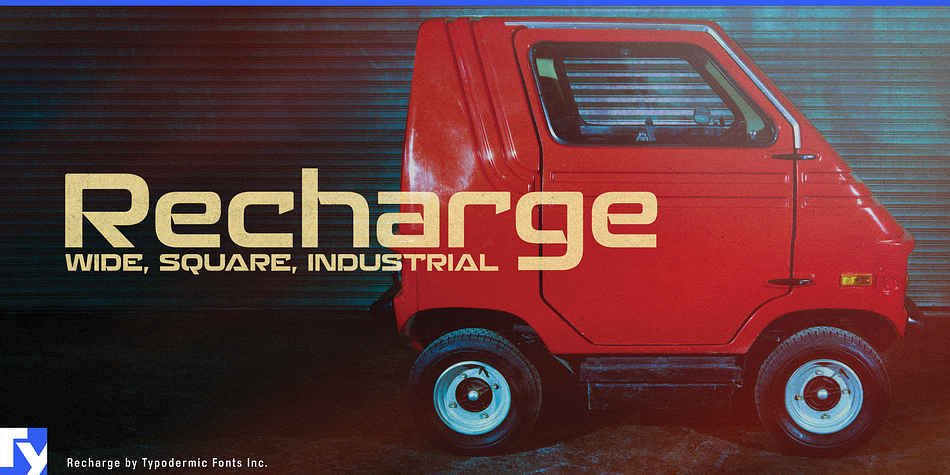
Recharge
Recharge is a display sans font family. This typeface has fourteen styles and was published by Typodermic Fonts Inc.
Introducing Recharge—the bold and versatile industrial typeface that’s designed to make your words come alive! With its broad, square design, Recharge is perfect for creating explosive headlines that demand attention. But don’t be fooled by its brash exterior—the refined lowercase letters are also ideal for producing crisp, legible paragraphs that will keep your readers engaged.
What really sets Recharge apart are its unusual angled stroke ends, which give the typeface a unique and dynamic character. These distinctive details make Recharge a great choice for a wide range of themes, including sports, military, space, automotive, electronics, and other technological subjects.
Whether you’re designing a bold and eye-catching advertisement or a sleek and modern website, Recharge has you covered. With seven weights and italics to choose from, you can easily create the perfect balance of weight and contrast to suit your needs. So why settle for a boring, generic typeface when you can use Recharge to make a bold statement? Try it today and see the difference for yourself!